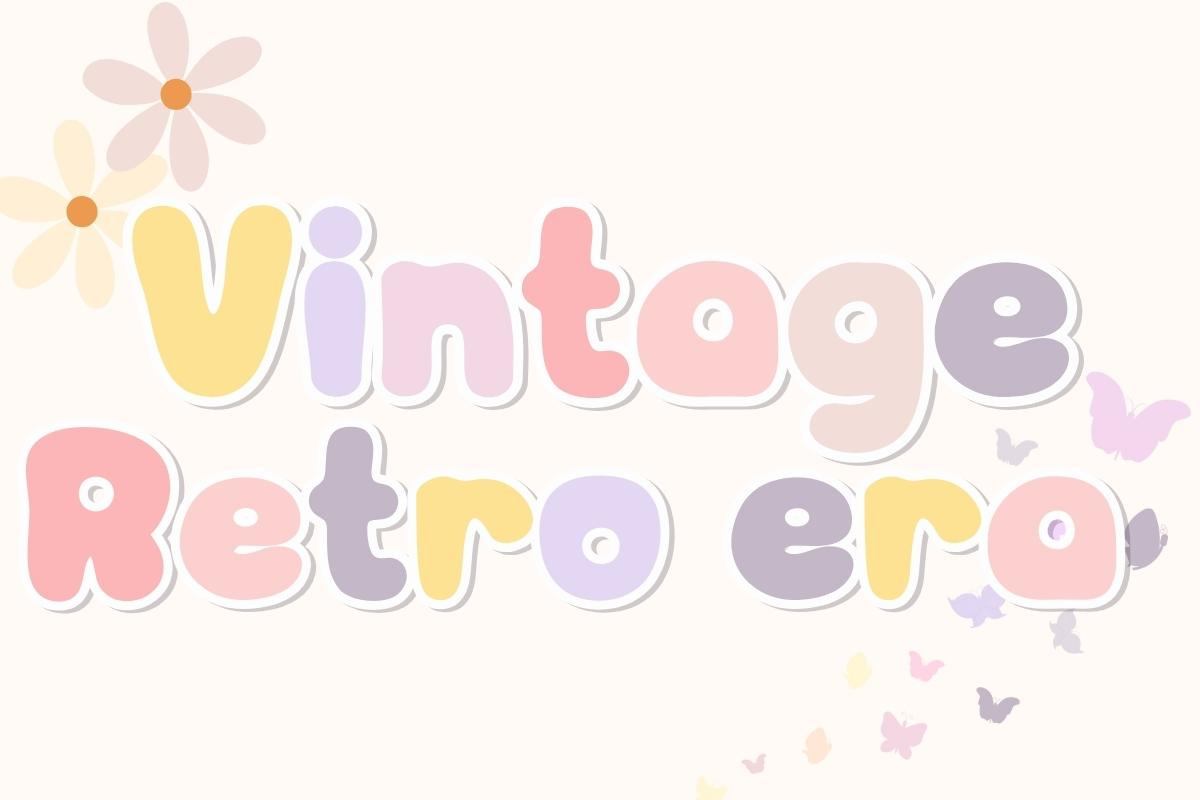
You must purchase this font for commercial use. However, you can download Vintage Retro Era - Handwriting Font Free Download for testing purposes. Vintage Retro Era is a charming handwritten font that captures the nostalgic, vintage aesthetic of the past with a modern touch. Perfect for creating retro-inspired branding, logos, invitations, posters, and other design projects, this font adds a personalized and artistic flair to your typography.
The unique handwritten strokes and flowing letterforms give Vintage Retro Era a nostalgic and expressive feel, making it ideal for designs that need a playful, yet sophisticated touch. Whether you're working on a retro-themed event, a creative brand, or a vintage-inspired product, this font brings style and personality to your designs.